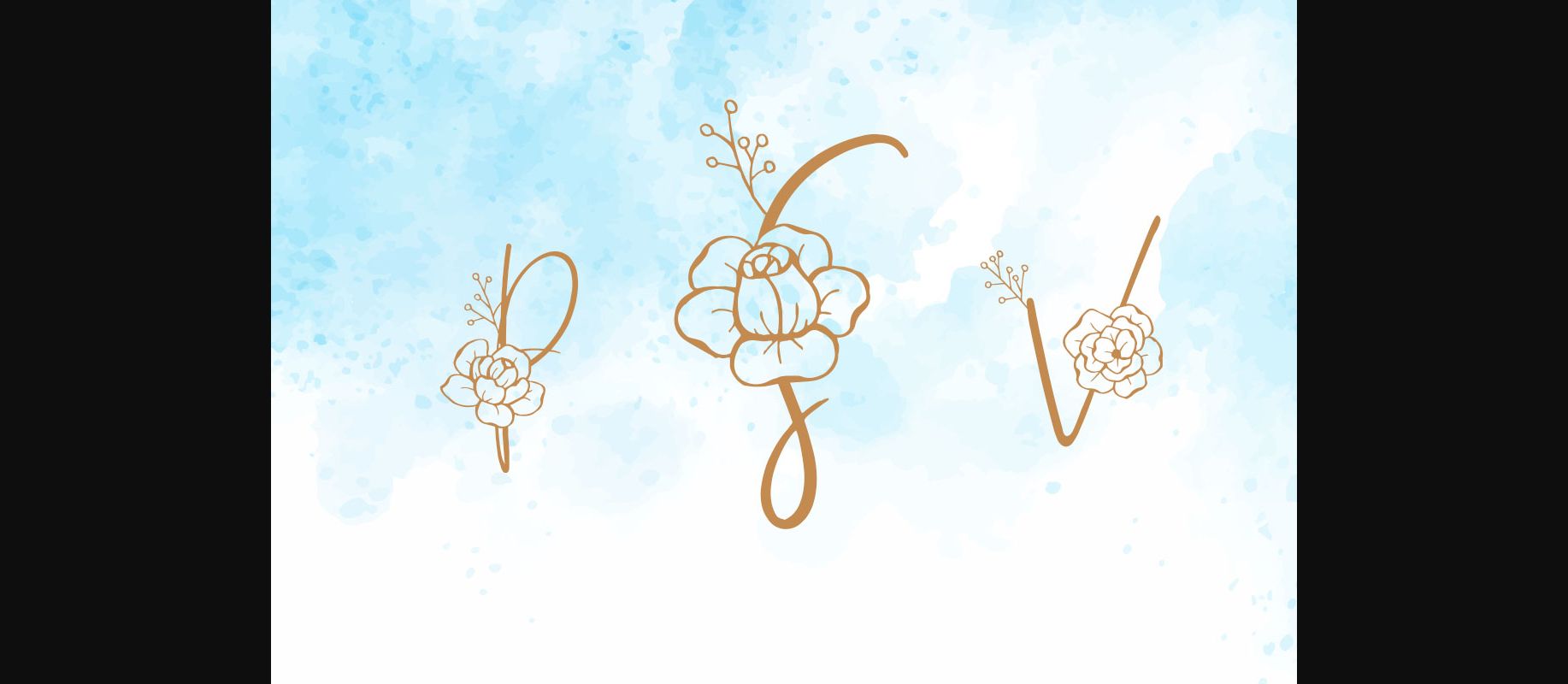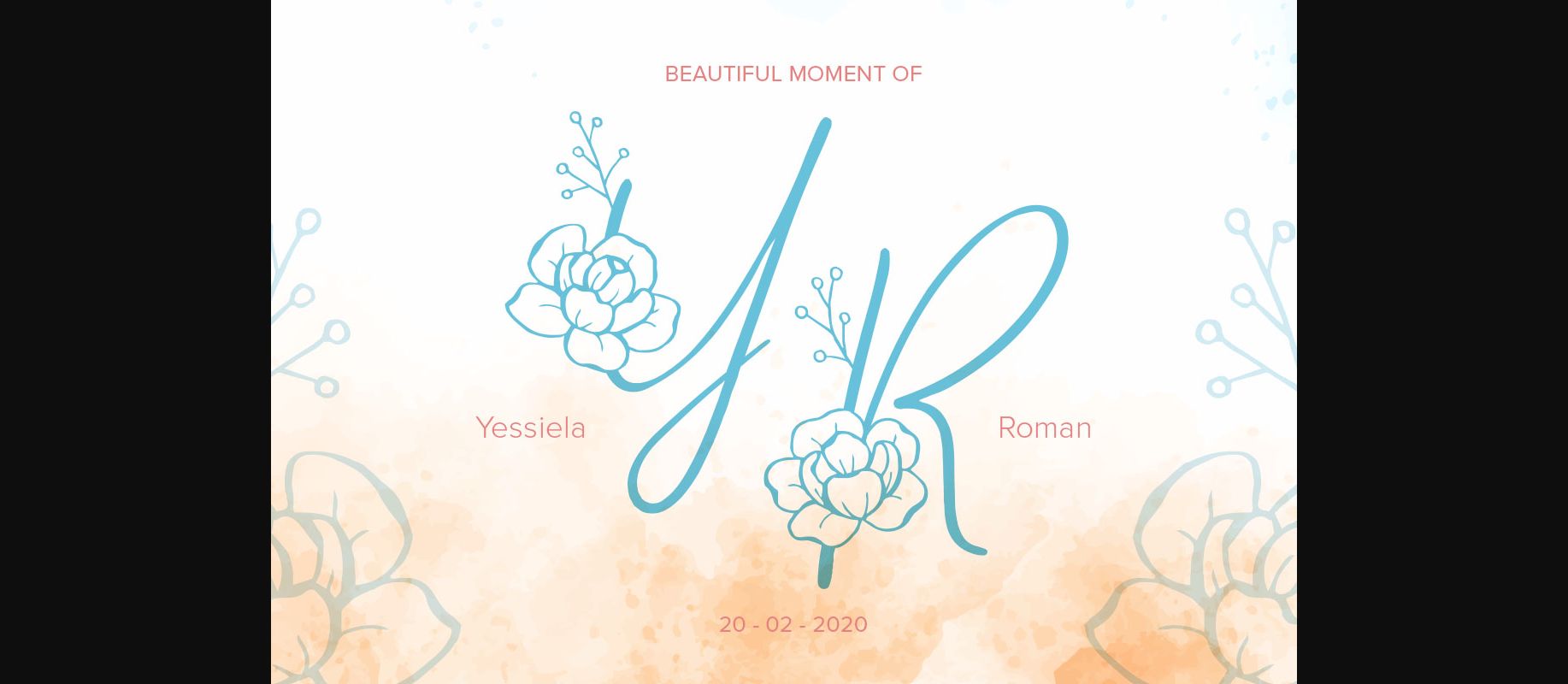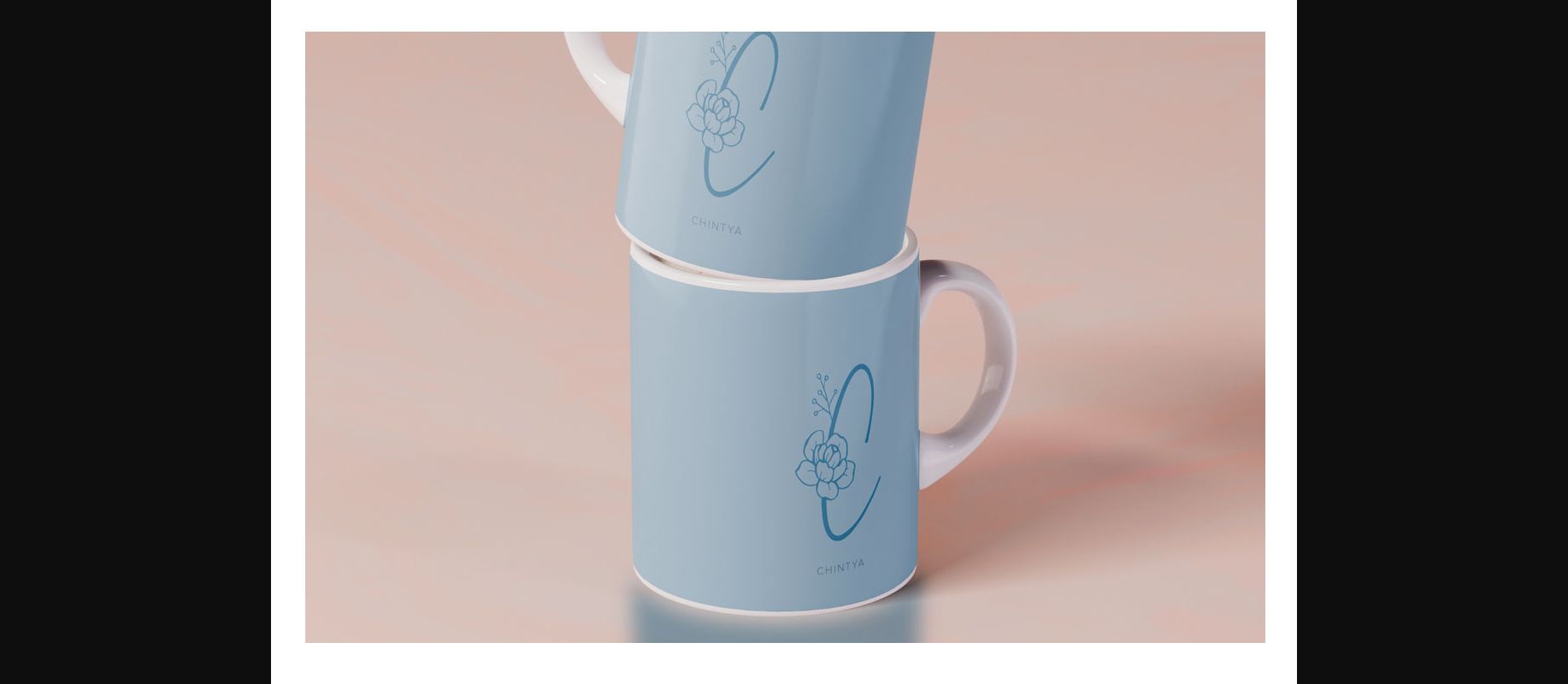
About Mellysia Monogram Font
Mellysia Monogram is a lovely and relaxed decorative font, featuring distinct flowers. It looks stunning on wedding invitations, thank you cards, quotes, greeting cards, logos, business cards and every other design which needs an elegant touch.